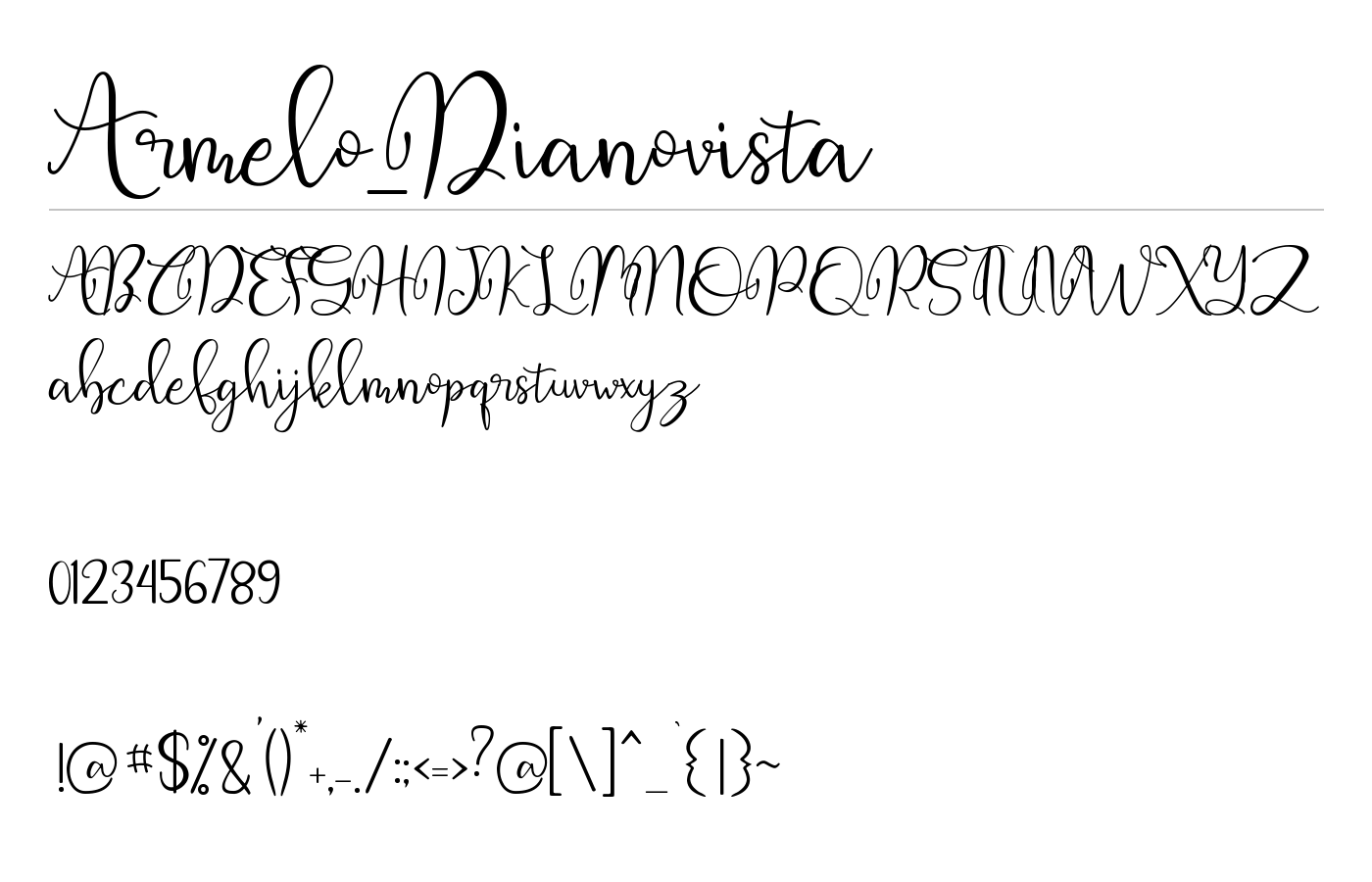
Armelo_Dianovista is a delicate, handwritten script font featuring elegant, flowing strokes with a graceful and airy feel. Its tall, slender letterforms and fine line contrast make it perfect for adding a touch of sophistication and charm to invitations, branding, and feminine-themed designs. This font works beautifully in headlines or decorative accents where a stylish, personal touch is desired.
Armelo_Dianovista Font
About Armelo_Dianovista Font